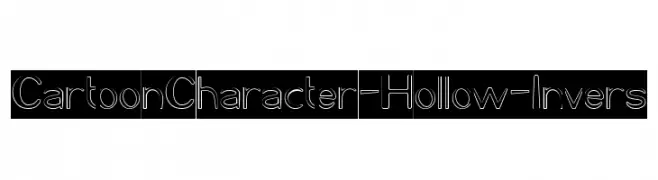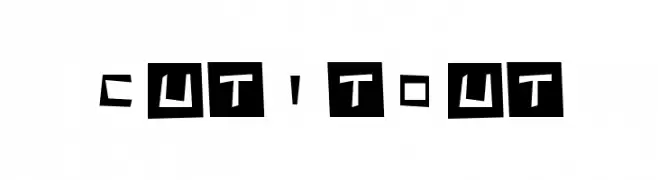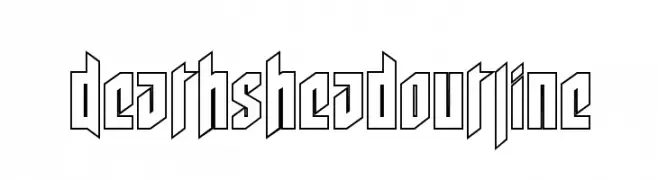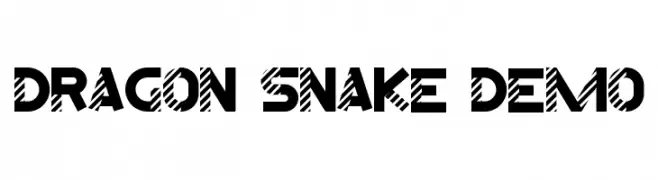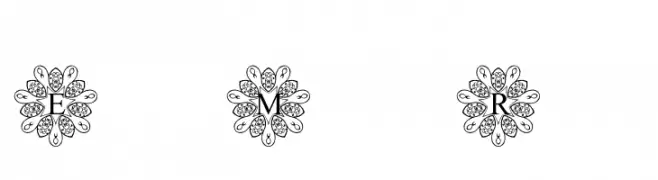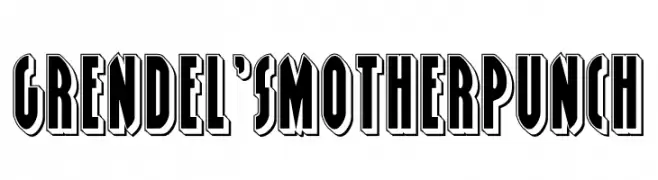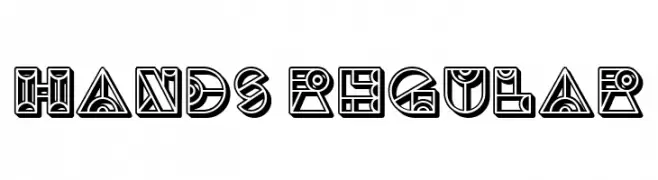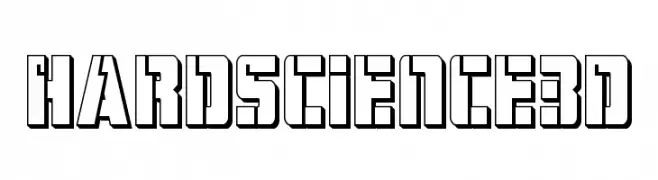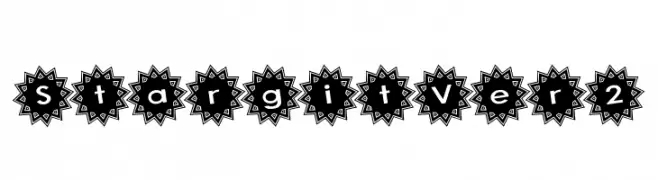
A playful, hollow cartoon-style font with outlined characters.
A bold, geometric font with a dynamic striped pattern for a modern, industrial look.
A bold, decorative font with geometric patterns and thick outlines.
An ornate, floral monogram font with a vintage European style.
A playful, cut-out style font with bold, irregular characters.
A decorative font with characters enclosed in starburst shapes, offering a bold and artistic style.
A bold, 3D outlined font with a modern, futuristic style.
Bold, italic font with camouflage pattern and thick outlines.
A bold, outlined font with a geometric, vintage-inspired style.
A bold, angular outline font with a modern gothic flair.